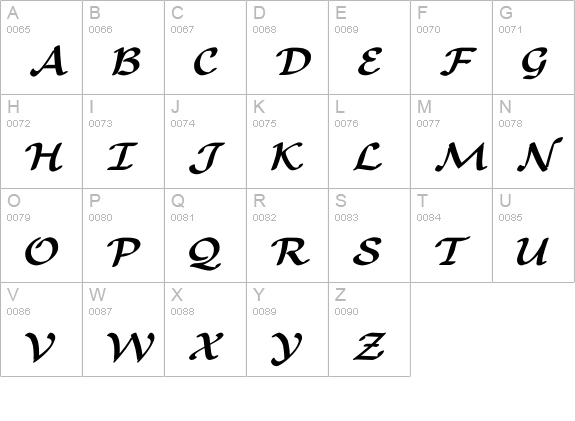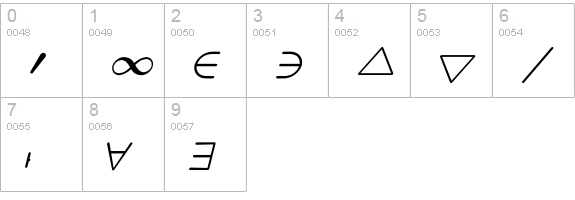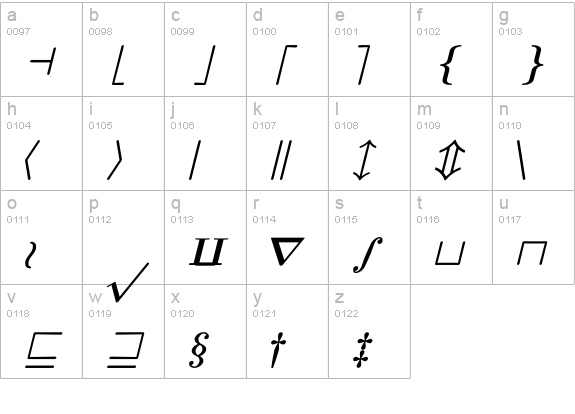
CM_MathSymbol Bold Font Details
CM_MathSymbol Bold is a strong, high-contrast variant in the CM_MathSymbol typeface family \xE2\x80\x94 well suited to headlines, attention-grabbing titles, and strong calls-to-action.
CM_MathSymbol Bold font is a stunning display typeface that adds a touch of sophistication to any design project. With its bold and distinctive appearance, this font is perfect for creating eye-catching headlines, titles, and logos. The sharp, clean lines of the characters make for easy readability, while the bold weight commands attention. Whether you're designing a website, poster, or branding materials, CM_MathSymbol Bold font will bring a modern and stylish aesthetic to your work. Best of all, CM_MathSymbol Bold font is completely free to download at FontsMarket.com. This means you can add this striking typeface to your font collection without breaking the bank. Don't miss out on the opportunity to enhance your designs with the bold and impactful CM_MathSymbol Bold font – download it today and start creating visually stunning projects!